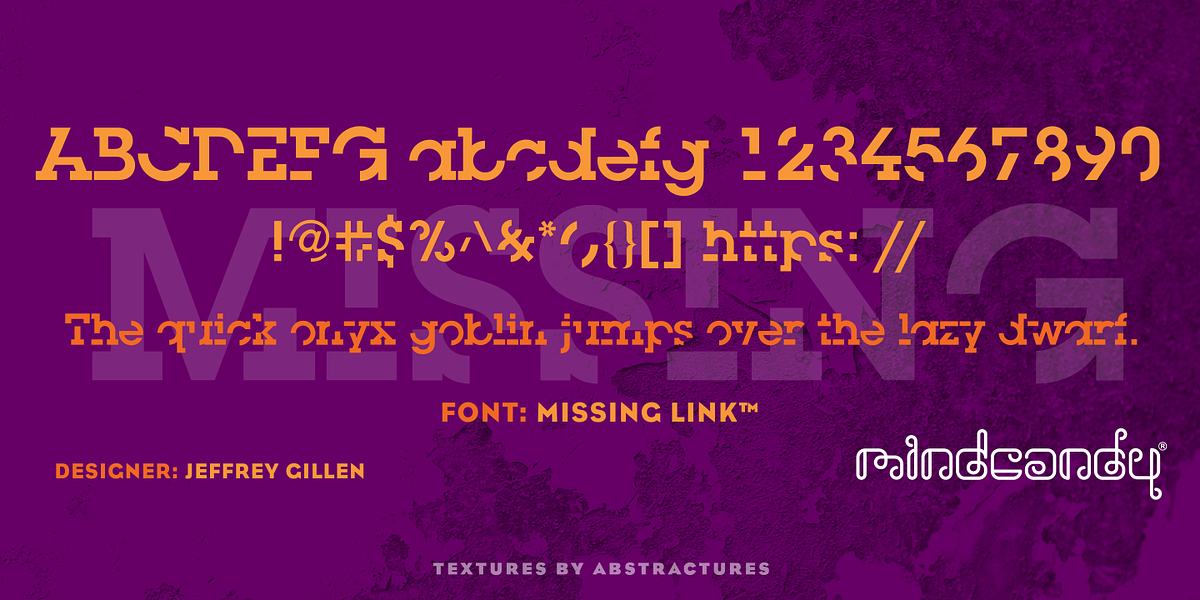
Missing Link™
Designed by Jeff Gillen and distributed by Fontspring.com, Crashed is a bold, condensed display slab serif font. Its heavy weight and minimal design make it suitable for impactful headlines and display text.